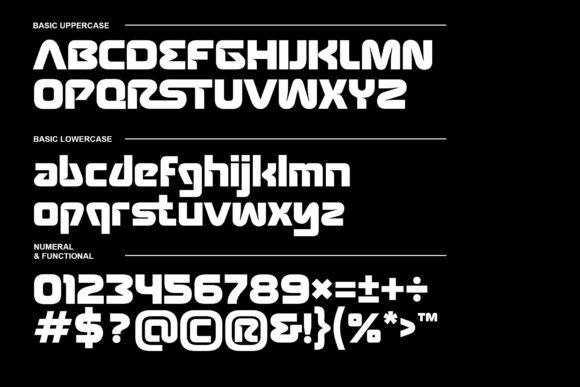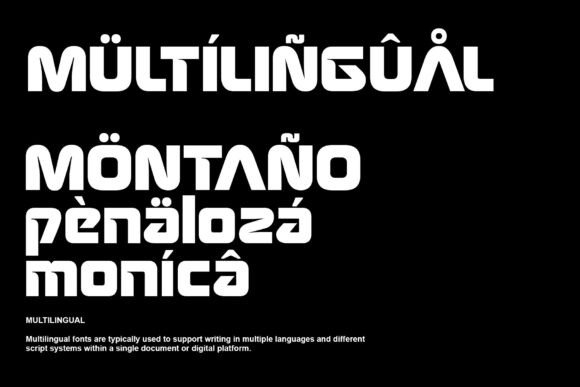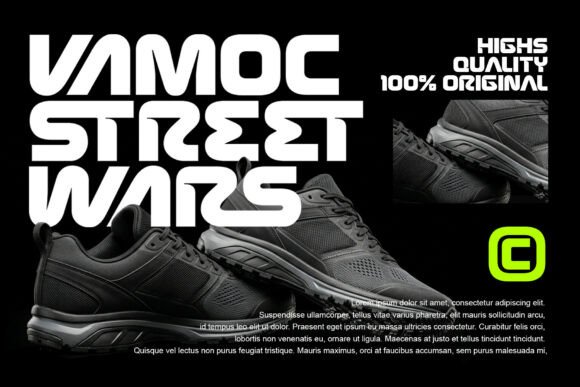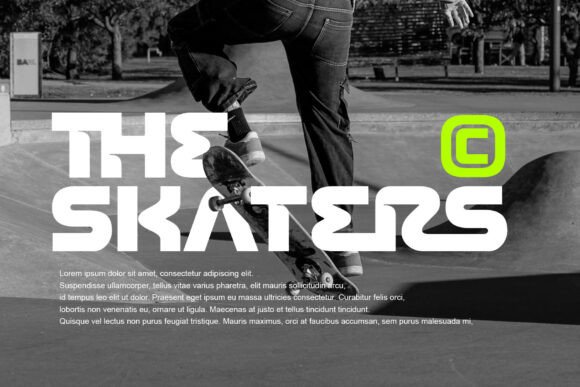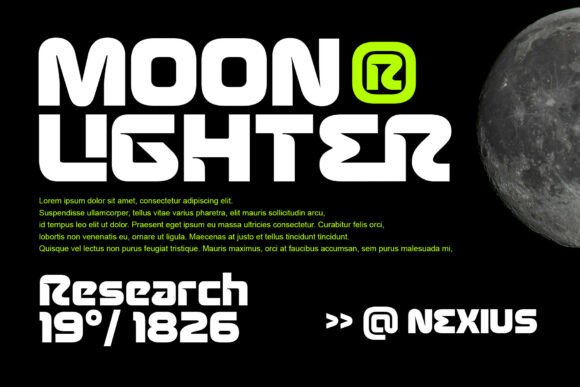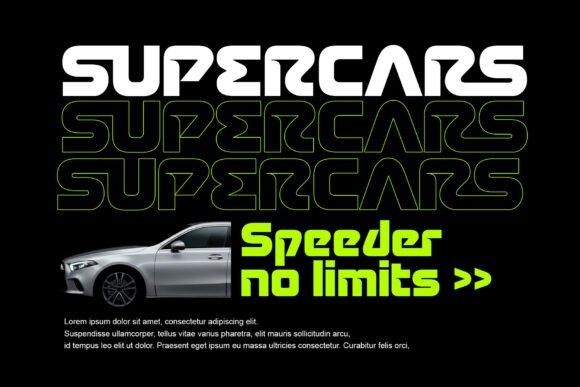
Unleash Your Creativity with Arsen Font
Have you ever stared at a blank page, trying to come up with the perfect headline or title for your project, only to find yourself getting stuck in a sea of bland, generic fonts? We’ve all been there. But what if you had a font that could transport you to a world of creativity and impact, where your ideas shine brighter than ever before?
Enter the Arsen Font, a masterfully crafted typeface designed to elevate your projects to new heights. Whether you’re working on a book, magazine, logo, branding, photography, or quote, this sophisticated font adds a touch of style and sophistication that’s hard to resist. As a designer, you know how valuable it is to have the right tools at your disposal to bring your vision to life, and that’s exactly what the Arsen Font offers.
Arsen Font Key Features
- Unique Characteristics: Arsen Font features a distinctive, modern design with geometric shapes and bold lines, making it ideal for use in graphic design, digital art, and advertising.
- Font Weight: Arsen Font is available in 5 different weights: Light, Regular, Medium, Bold, and Black, allowing designers to choose the perfect weight to match their project’s tone and style.
Designer Review: Arsen Font
Overall, the Arsen Font is an interesting and modern choice for any design project. It has a unique blend of sleek lines and geometric shapes that can add a touch of sophistication to any text-based element. ✨
Here are some of its strengths:
- High legibility: The Arsen Font is easy to read, even at small font sizes.
- Customizable: The font comes in a variety of styles, including regular, bold, italic, and bold-italic.
- ✨ Limited expressiveness: While the Arsen Font is modern and sleek, it may not be the best choice for projects that require a lot of emotional expression or personality.
- ⚠️ Limited language support: The font may not be optimized for certain languages, which could lead to display issues or character substitutions.
- ⚠️ Not suitable for small text: While the Arsen Font is legible at small font sizes, it may become difficult to read at extremely small sizes.
In conclusion, the Arsen Font is a solid choice for designers who want a modern and sophisticated font for their projects. However, it may not be the best fit for every project, and designers should carefully consider the font’s limitations before making a decision.
Getting the Most Out of Arsen Font
To get the most out of Arsen Font, experiment with different font sizes, colors, and combinations with other fonts.
Use Arsen Font for titles, headings, and other emphasis to create visual interest in your designs.
Try pairing Arsen Font with other fonts to create unique and creative typography.
Arsen Font is ideal for:
Titles and headings in designs.
Emphasis and highlighting in text.
Creating unique and creative typography.